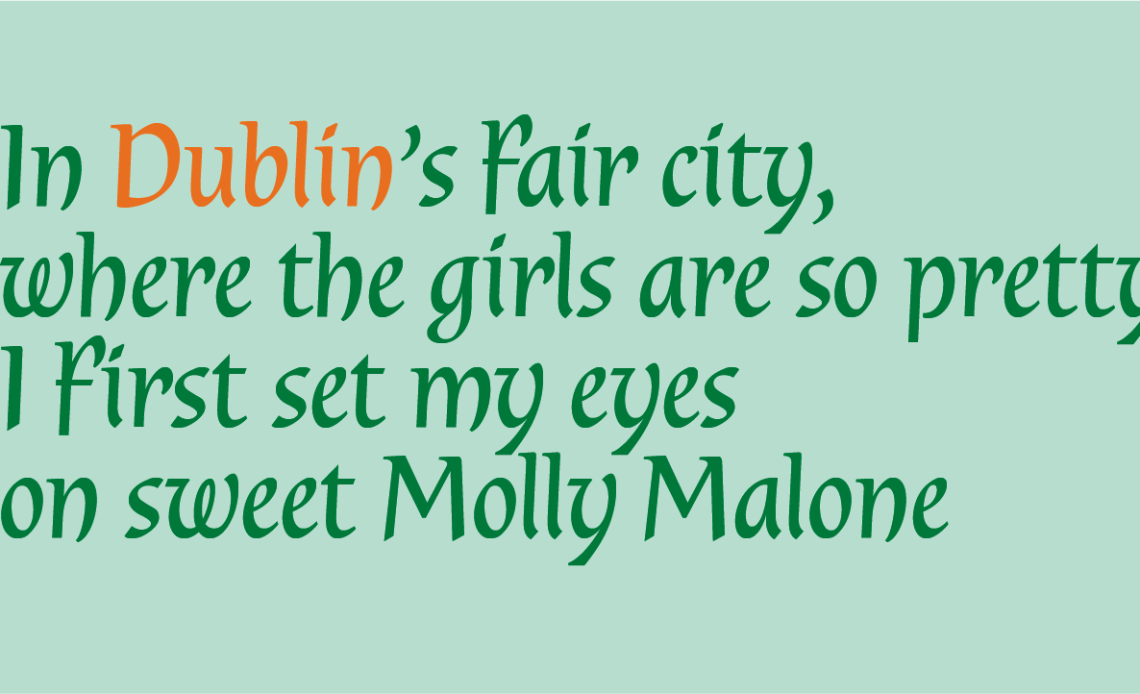
Introducing Dublin Font, the epitome of elegance and creativity in the world of typography. Crafted by the renowned designer Alan Meeks, this font family is here to revolutionize your design projects with its classic Celtic style of lettering. Whether you're creating a stunning resume or working on a captivating design, Dublin Font is the key to making a lasting impression.
With its alternative set of capitals and a few alternative lower case, Dublin Font offers you the freedom to personalize your creations and add a touch of uniqueness. Stand out from the crowd and let your creativity soar as you explore the endless possibilities this font has to offer.
Looking to create a resume that truly reflects your personality and professionalism? Look no further. Dublin Font is the best font for designing resumes that will leave potential employers in awe. Its captivating and sophisticated style adds a touch of class to your professional profile, helping you secure that dream job.
But Dublin Font doesn't stop at resumes. Its versatility extends to a wide range of design projects. From eye-catching logos to breathtaking invitations, this font family is the secret ingredient to making your creations unforgettable. Let your imagination run wild as you unlock the full potential of Dublin Font.
Embrace the power of emotional connection with Dublin Font. Its graceful curves and intricate details evoke a sense of elegance and sophistication that captivates the viewer's attention. With every letter, Dublin Font tells a story, creating a seamless blend of aesthetics and meaning.
Dublin Font is more than just a collection of letters; it's a gateway to a world of creativity. It empowers you to express yourself in ways you never thought possible. Let your designs speak volumes and leave a lasting impact on your audience.
So why wait? Unleash your creative genius and make a statement with Dublin Font. Elevate your designs, captivate your audience, and leave a lasting impression. The possibilities are endless with Dublin Font by your side.